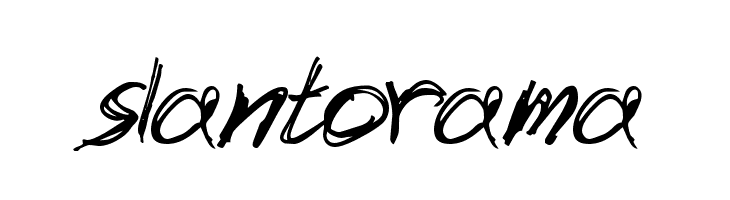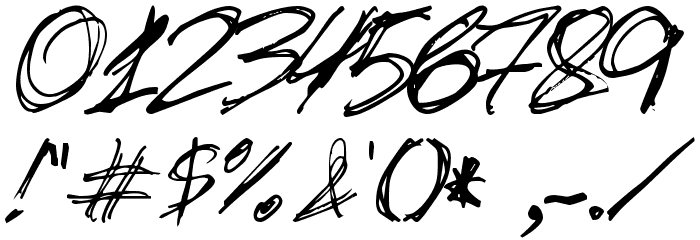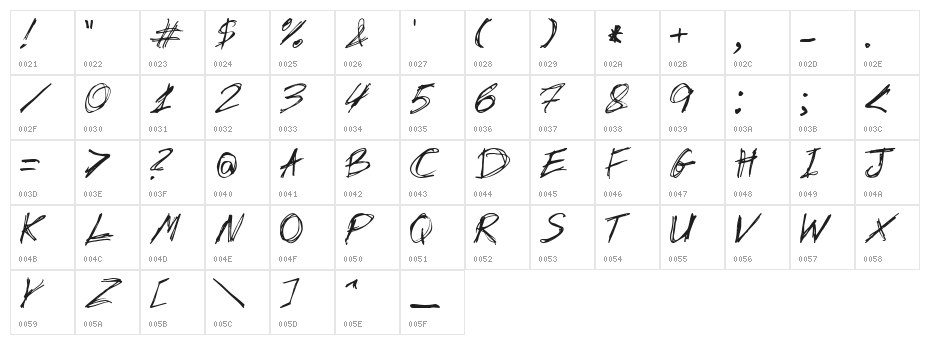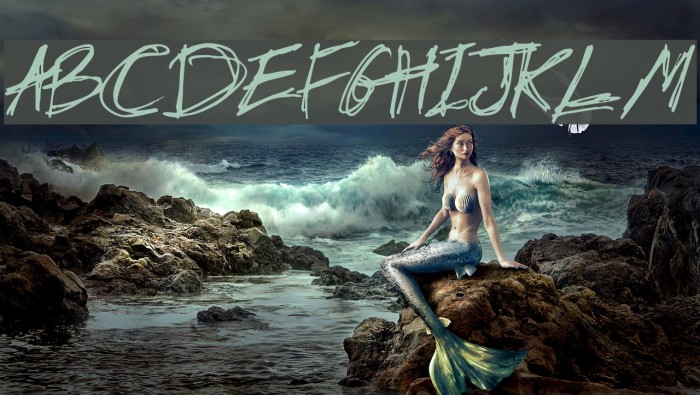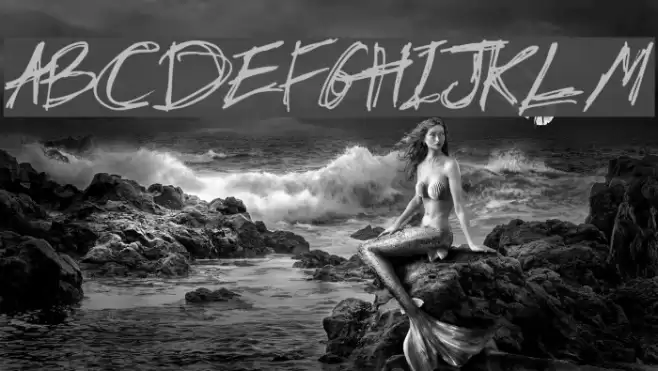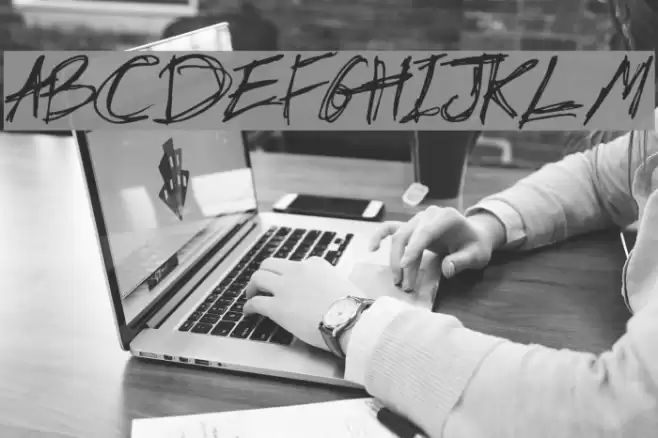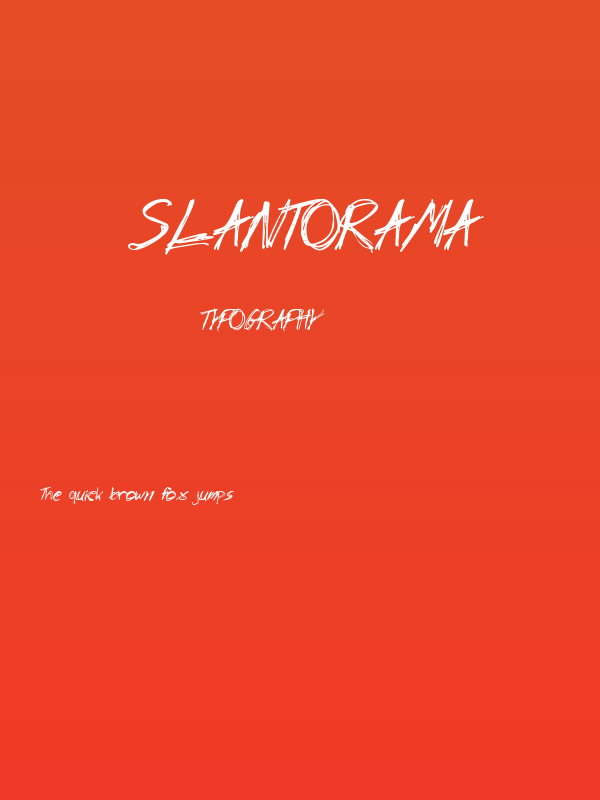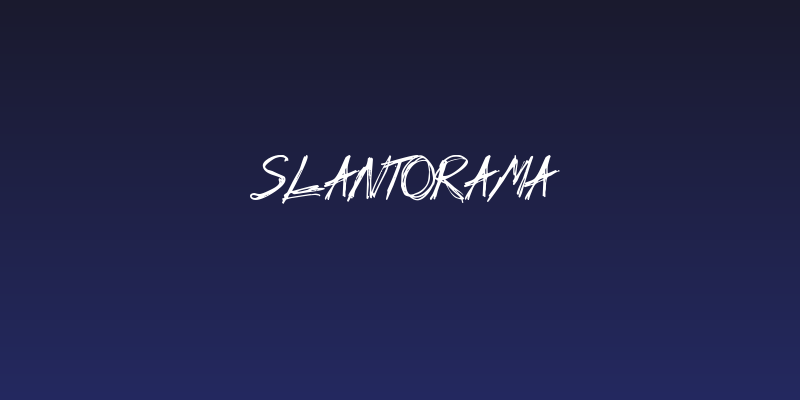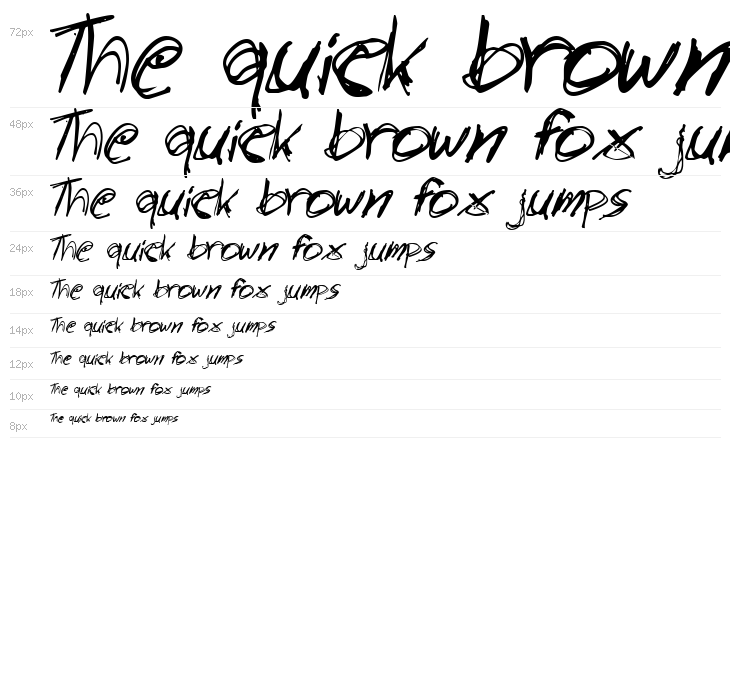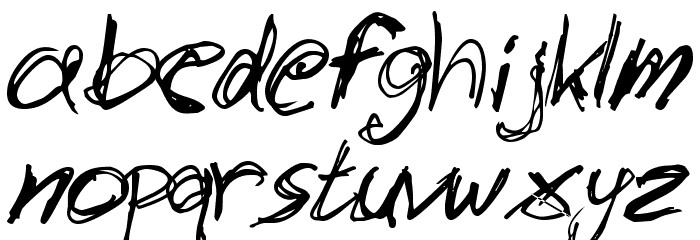
slantorama Font
slantorama Description
This font features a dynamic and energetic style, characterized by its bold, hand-drawn appearance. The letters are slanted and have a rough, sketch-like quality, giving them a sense of movement and spontaneity. The strokes are uneven, with varying thickness that adds to the font's expressive nature. The uppercase and lowercase letters maintain a consistent style, while the numbers and special characters complement the overall aesthetic. This font is ideal for projects that require a bold and artistic touch, capturing attention with its unique and rebellious flair.
| Use Case | Headlines, Logos, Artistic projects |
| Proposed Projects | Ideal for posters, album covers, graffiti art, and edgy branding projects. |